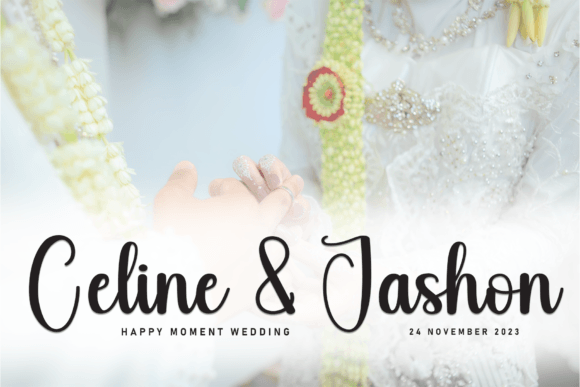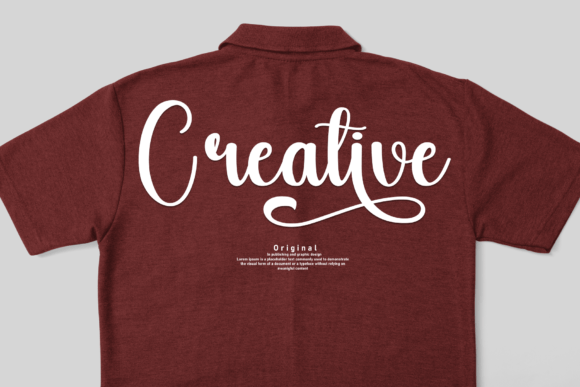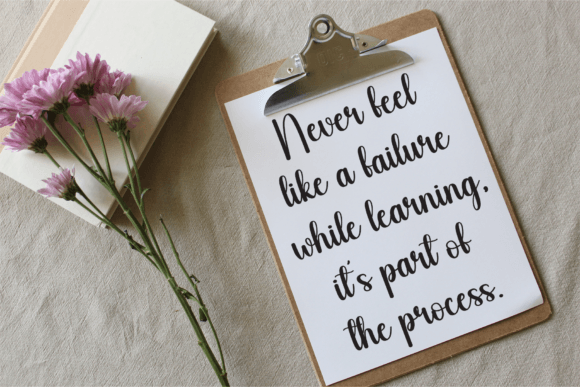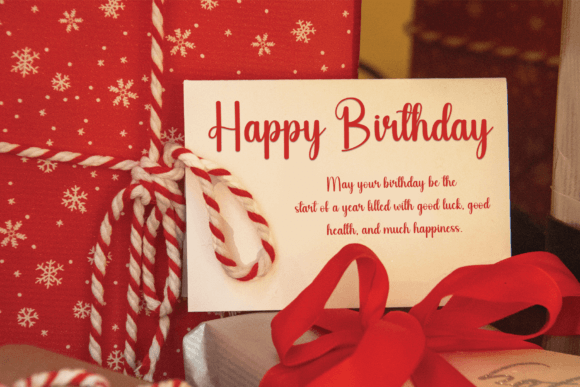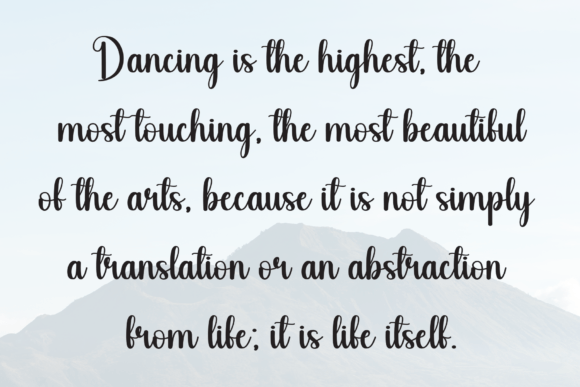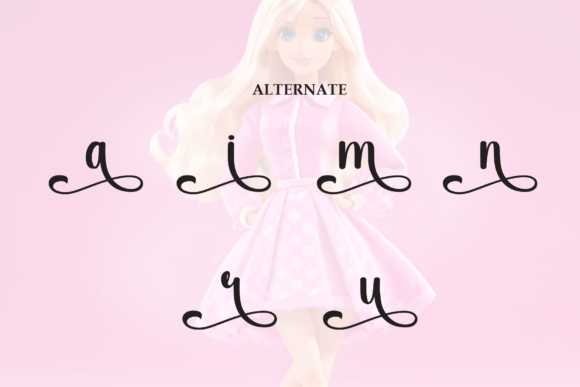
The Sweet and Friendly Blonde Barbie Font: A Designer’s Delight
I’ll never forget the time I was working on a wedding invitation project, and my client asked for a font that was “fun, yet elegant.” I scoured the internet, trying out font after font, but nothing seemed quite right. That was until I stumbled upon the Blonde Barbie Font. This sweet and friendly handwritten display font has been a game-changer for my designs, and I’m excited to share it with you.
- ✨ The Blonde Barbie Font is incredibly versatile, making it perfect for a wide range of design projects, from wedding invitations to social media graphics.
- ✅ The font is easy to read, even in smaller sizes, making it ideal for body text or captions.
- 🌸 The handwritten style gives my designs a personal and whimsical touch that’s hard to achieve with more traditional fonts.
While the Blonde Barbie Font is an excellent choice for many projects, there are a few things to keep in mind. 🤔 For example:
- ⚠️ The font can be a bit overused in some contexts, so be sure to balance it with other design elements.
- ⚠️ Some of the glyphs and special characters may not be immediately obvious, so be sure to explore the font’s features before getting started.
- Experiment with the font’s OpenType features, such as glyphs and stylistic alternates, to add visual interest to your design.
- Explore the font’s features, such as glyphs and stylistic alternates, to add depth and interest to your design.
The Backstory Behind Blonde Barbie Font
The Blonde Barbie Font was designed with the intention of creating a friendly and approachable handwritten font. The designer wanted to capture the essence of a warm and inviting conversation, and the result is a font that’s perfect for a wide range of design projects.
Q: What type of projects is the Blonde Barbie Font best suited for?
A: The Blonde Barbie Font is perfect for a wide range of design projects, including wedding invitations, social media graphics, and more.
Q: Is the Blonde Barbie Font easy to read?
A: Yes, the Blonde Barbie Font is easy to read, even in smaller sizes. However, it’s best suited for display text or headings rather than body text.